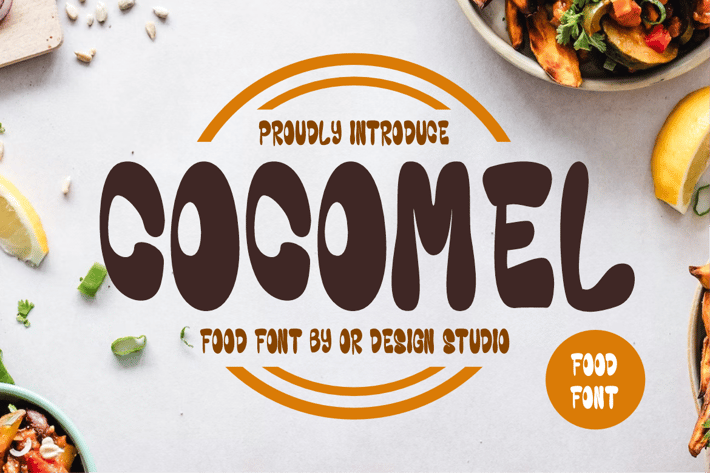
Cocomel - Food Fonts
Cocomel - Food Fonts is a bold and authentic display font.
The font is suitable for any branding project like food, kids, poster, logo, sport, and many more.